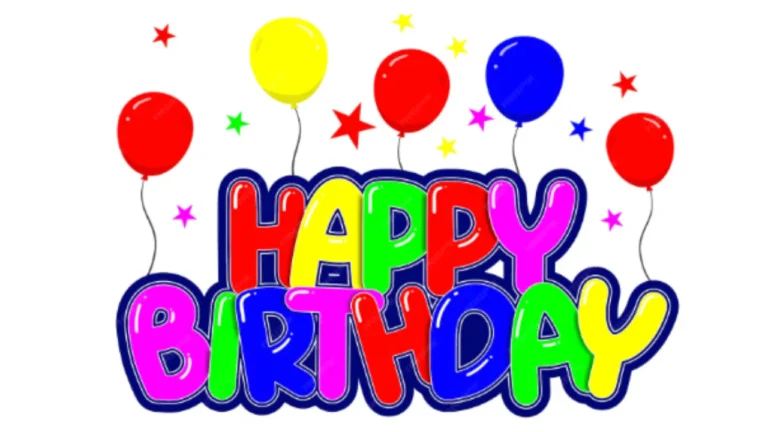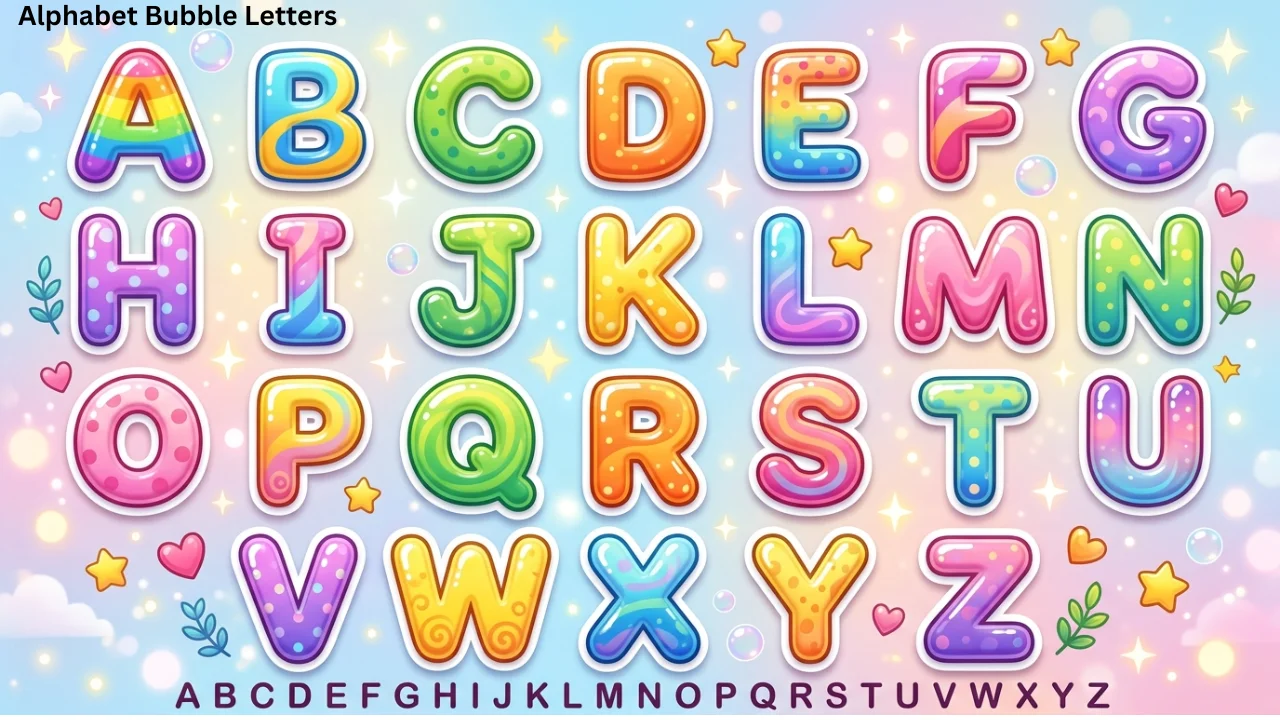
Alphabet Bubble Letters Easy Steps, Styles & Tips for Beginners
Alphabet bubble letters are bold, rounded, and fun letter styles that many people love to draw. You often see them in school projects, posters, graffiti art, and creative designs. Their soft and puffy shape makes them easy to learn and attractive for all ages. In this guide, you will learn everything about alphabet bubble letter, from basic steps to creative ideas.
What Are Alphabet Bubble Letters?
Alphabet bubble letter are a type of lettering where each letter looks thick, round, and inflated like a bubble. Instead of sharp edges, these letters have smooth curves and wide outlines. This style makes them stand out and easy to read.
People use alphabet bubble letter in art, design, and education because they are simple and eye-catching. Kids enjoy drawing them, and adults use them in creative work.
Why Are Bubble Letters So Popular?
Bubble letters stay popular for many reasons. First, they are very easy to draw. Second, they allow a lot of creativity. You can add colors, shadows, and patterns to make them unique.
Here are some key reasons why people love them:
• Simple shapes make them beginner-friendly
• Bold style grabs attention quickly
• Flexible design works for many uses
• Great for both kids and adults
Because of these benefits, alphabet bubble letter are widely used in classrooms and art projects.
Basic Structure of Bubble Letters
Before you start drawing, you should understand the structure. Each bubble letter follows a simple rule: draw a normal letter first, then make it thicker with rounded edges.
Key Features of Bubble Letters
FeatureDescription
Rounded edgesNo sharp corners
Thick outlinesLetters look bold and wide
Even spacingEach letter stays balanced
Smooth curvesLines flow easily
Step-by-Step Guide to Drawing Bubble Letters
Drawing bubble letters does not require special tools. You only need a pencil, paper, and a marker.
Step 1: Write a Simple Letter
Start by writing a basic letter in your normal handwriting. Keep it light because you will draw over it later.
Step 2: Add Thickness
Draw a second line around the letter to make it thicker. Keep the space even on all sides.
Step 3: Round the Corners
Turn sharp edges into smooth curves. This step gives the letter its “bubble” look.
Step 4: Erase Inner Lines
Erase the original thin letter inside. Now you will see only the bold outline.
Step 5: Add Details
Add shadows, colors, or patterns. This step brings your alphabet bubble letter to life.
Tools You Can Use
You can create bubble letters with simple or advanced tools. Here is a helpful table:
ToolUse
PencilSketch the base letter
EraserClean mistakes
MarkerOutline the letter
Color pencilsAdd color and shading
Digital appsCreate bubble letters on screen
Using the right tools can improve your results when drawing alphabet bubble letters.
Different Styles of Bubble Letters
Bubble letters are not all the same. You can try different styles to make your work unique.
Classic Bubble Letters
These are simple, rounded, and clean. Beginners should start here.
Graffiti Bubble Letters
This style looks bold and artistic. It often includes shadows and 3D effects.
Cartoon Bubble Letters
These letters look playful and fun. Artists often add faces or decorations.
3D Bubble Letters
This style adds depth. It makes the letters look like they are popping out.
Each style gives a new look to alphabet bubble letters and helps you explore creativity.
Tips to Improve Your Bubble Letter Skills
You can improve quickly if you follow some simple tips. Practice plays a big role.
Start with large letters because they are easier to shape
Keep lines smooth and steady for better curves
Use light strokes first so you can fix mistakes
Experiment with colors to make designs more attractive
Practice daily to build confidence
When you apply these tips, your alphabet bubble letters will look cleaner and more professional.
Common Mistakes to Avoid
Many beginners make small mistakes that affect their design. Avoid these to improve faster.
• Drawing uneven thickness
• Making sharp edges instead of curves
• Overcrowding letters
• Skipping the sketch step
• Adding too many details too early
Fixing these mistakes will help you create better alphabet bubble letters.
Creative Ideas for Using Bubble Letters
Bubble letters are not just for practice. You can use them in many creative ways.
School Projects
Students use bubble letters for headings and posters. They make projects look neat and colorful.
Posters and Banners
Design eye-catching banners using bold letters. They grab attention quickly.
Conclusion
Alphabet bubble letters are a fun and simple way to explore creativity. They use smooth curves, bold shapes, and playful designs to create eye-catching text. Anyone can learn them with basic steps and regular practice. Start with simple letters, focus on clean outlines, and slowly add colors and effects. With time, your skills will improve, and your designs will look more professional. Whether you use them for school, art, or personal projects, bubble letters always bring life and energy to your work.